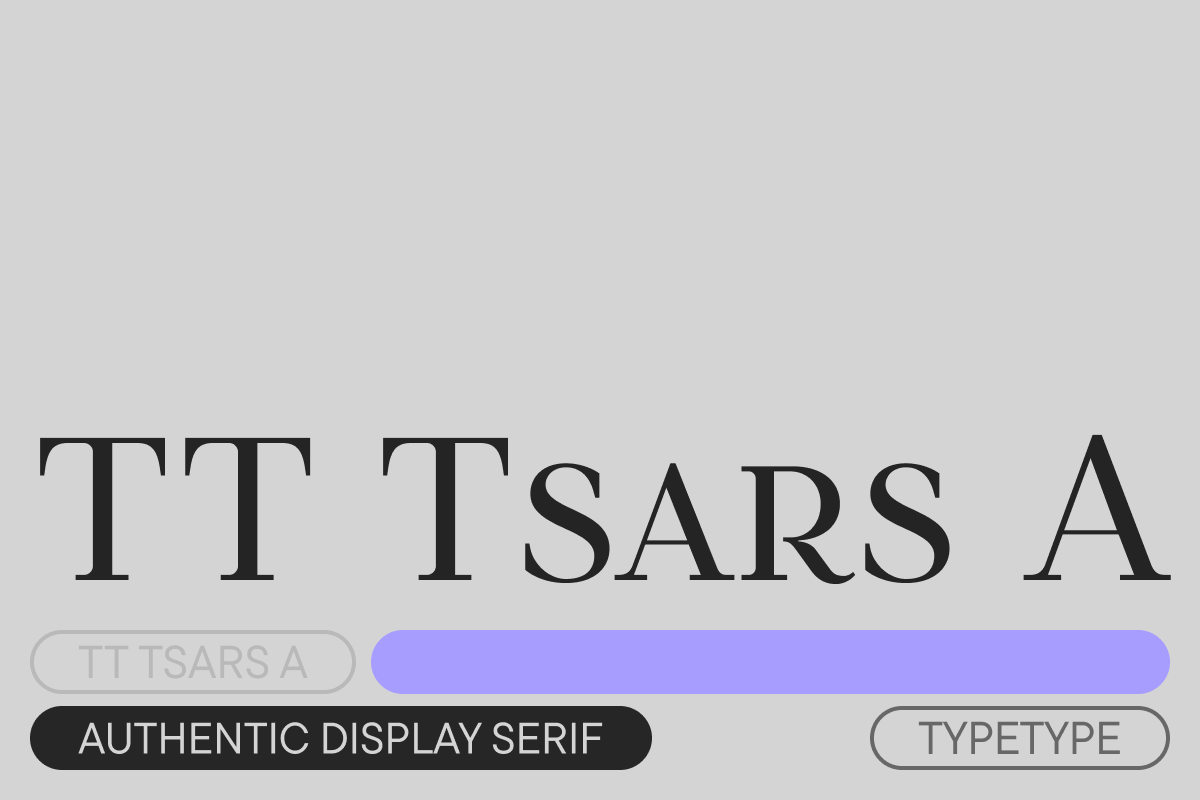
TT Tsars A Bold
The TT Tsars font family is a collection of serif display titling fonts that are stylized to resemble the fonts of the beginning, the middle and the end of the XVIII century. The project is based on title fonts, that is, the fonts that were used to design book title pages. Time-related characteristics of the subfamilies are distributed as follows: • TT Tsars A—the beginning of the 18th century